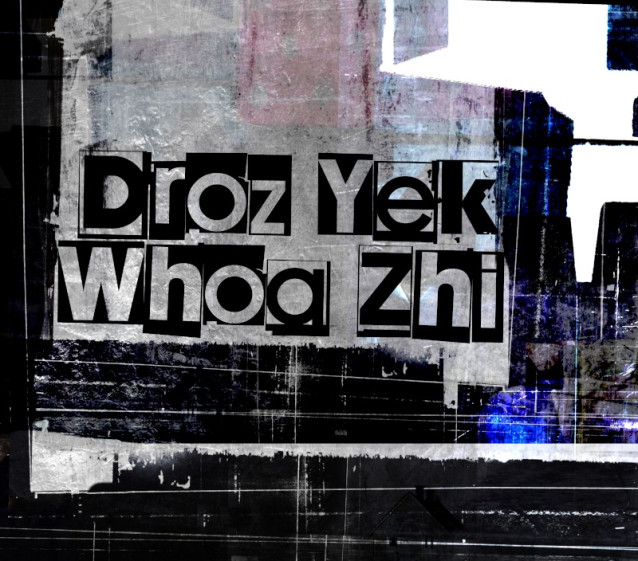
Droz Yek Whoa Zhi Font, perfectly fit for branding, logo, wedding things, greeting cards, fashion, lookbook, marketing promotion, anytime you want to look fancy elegant but still casual.
| Designer Name: | Juha Korhonen |
| Classification: | Display Fonts, Various Fonts |